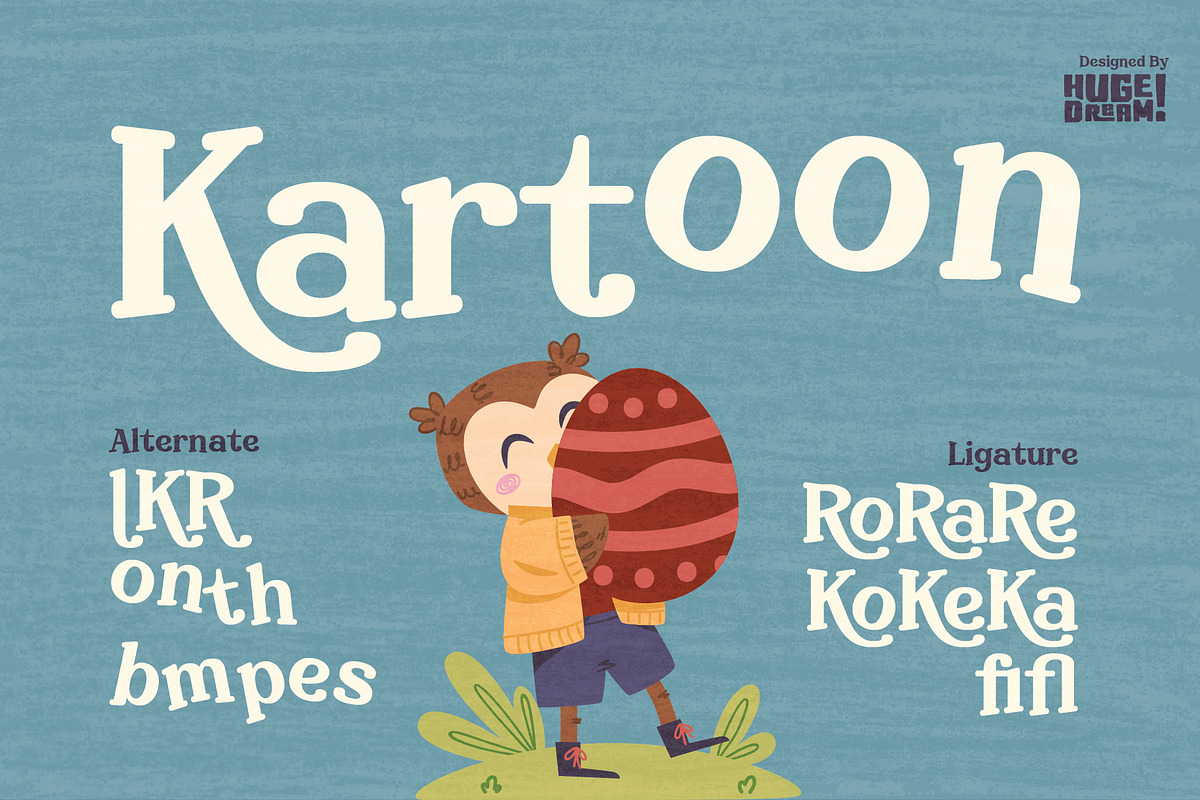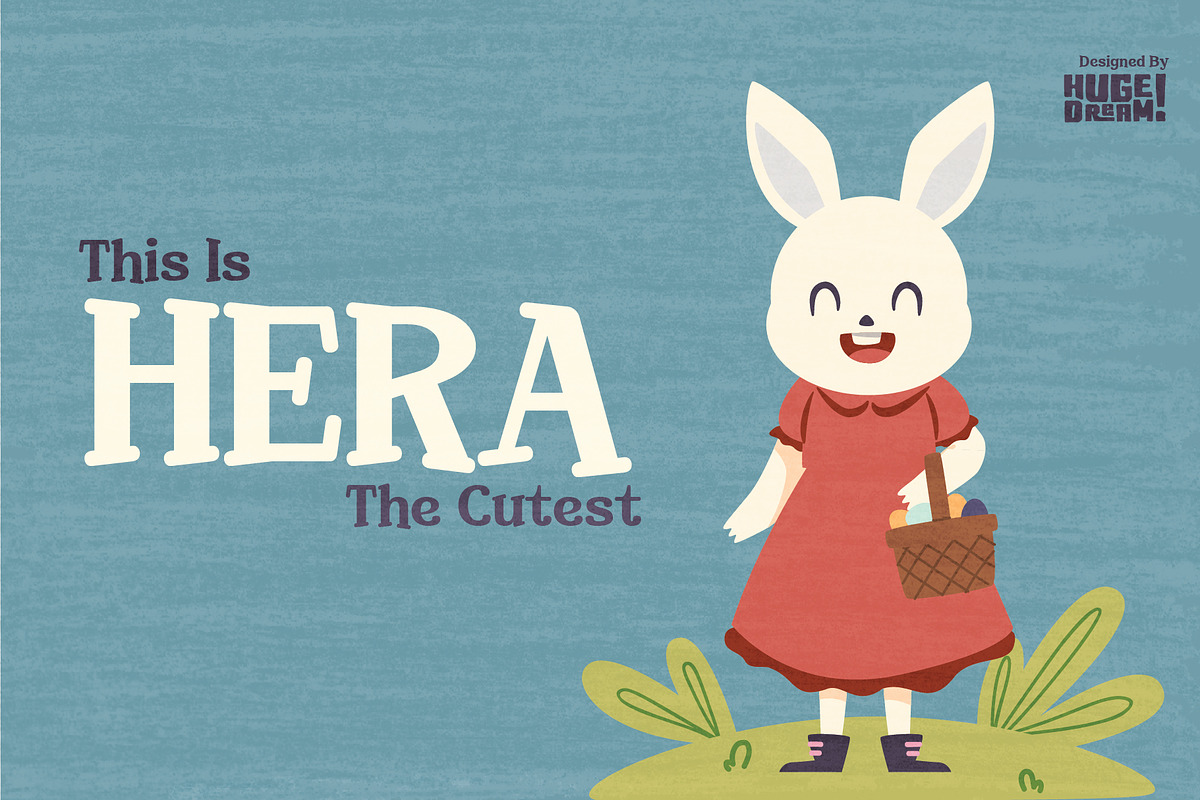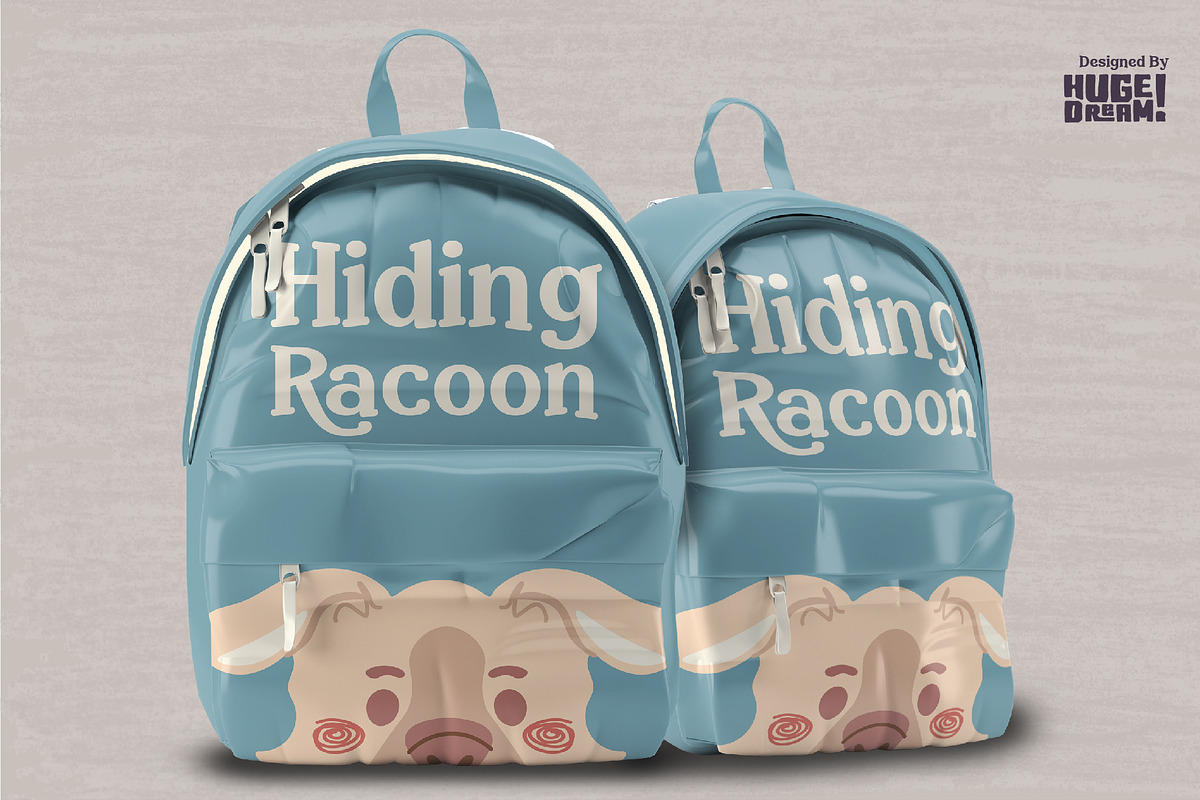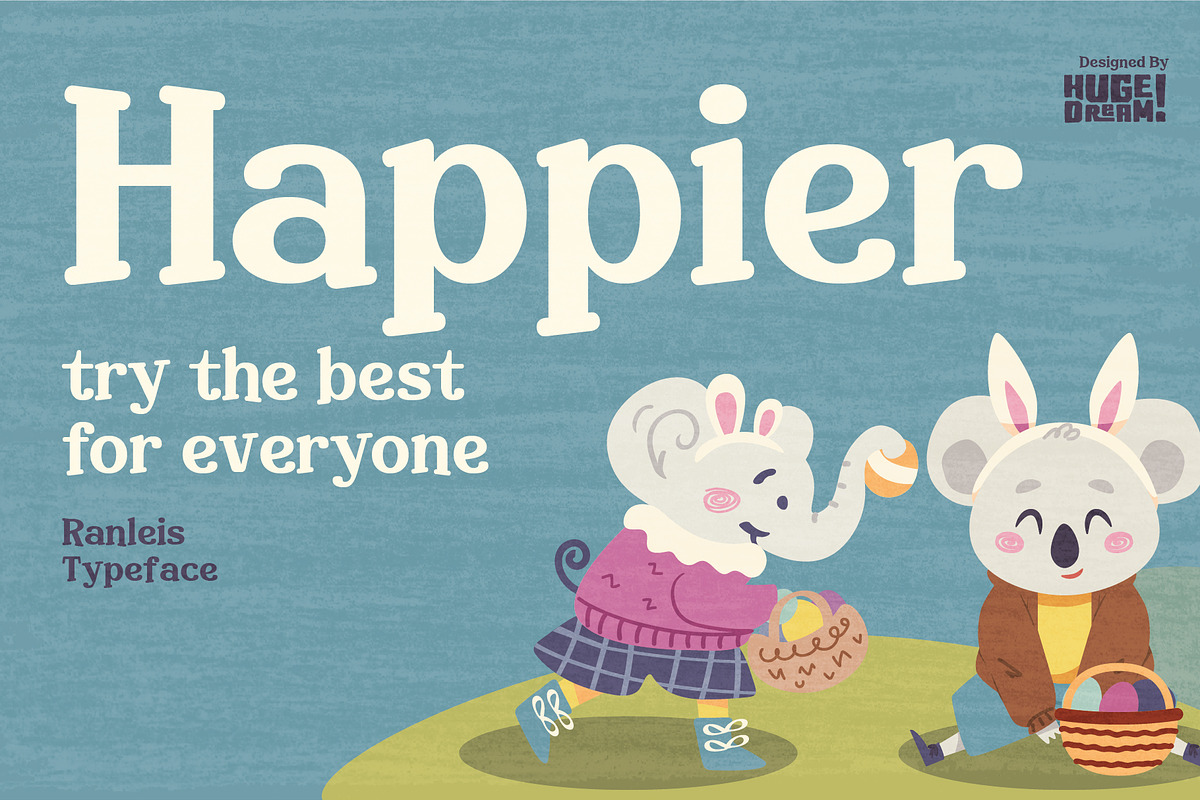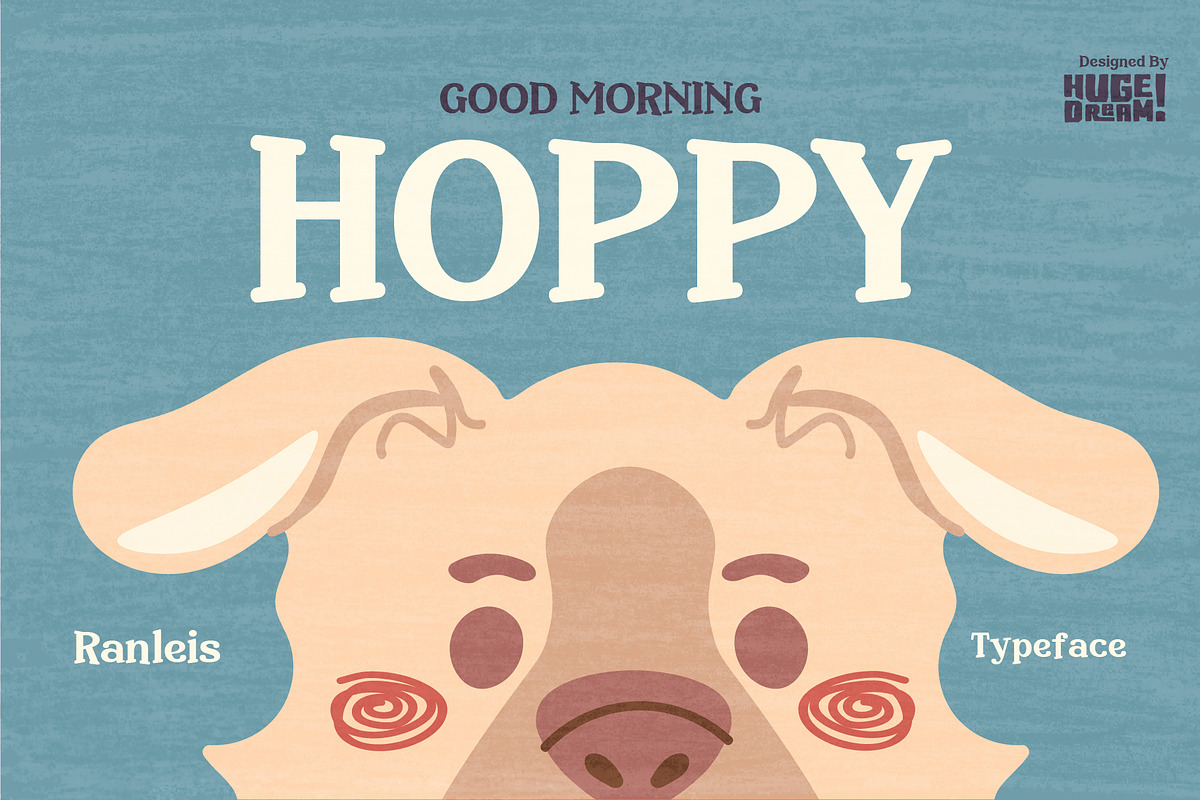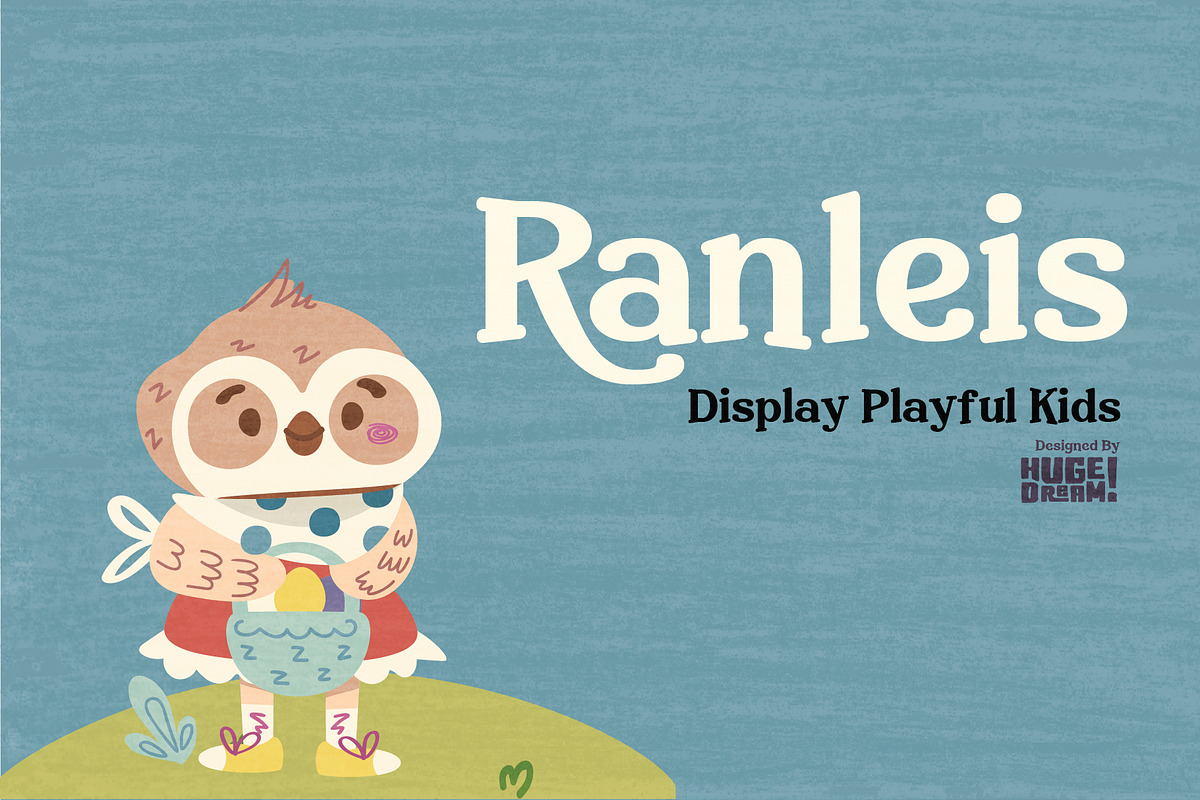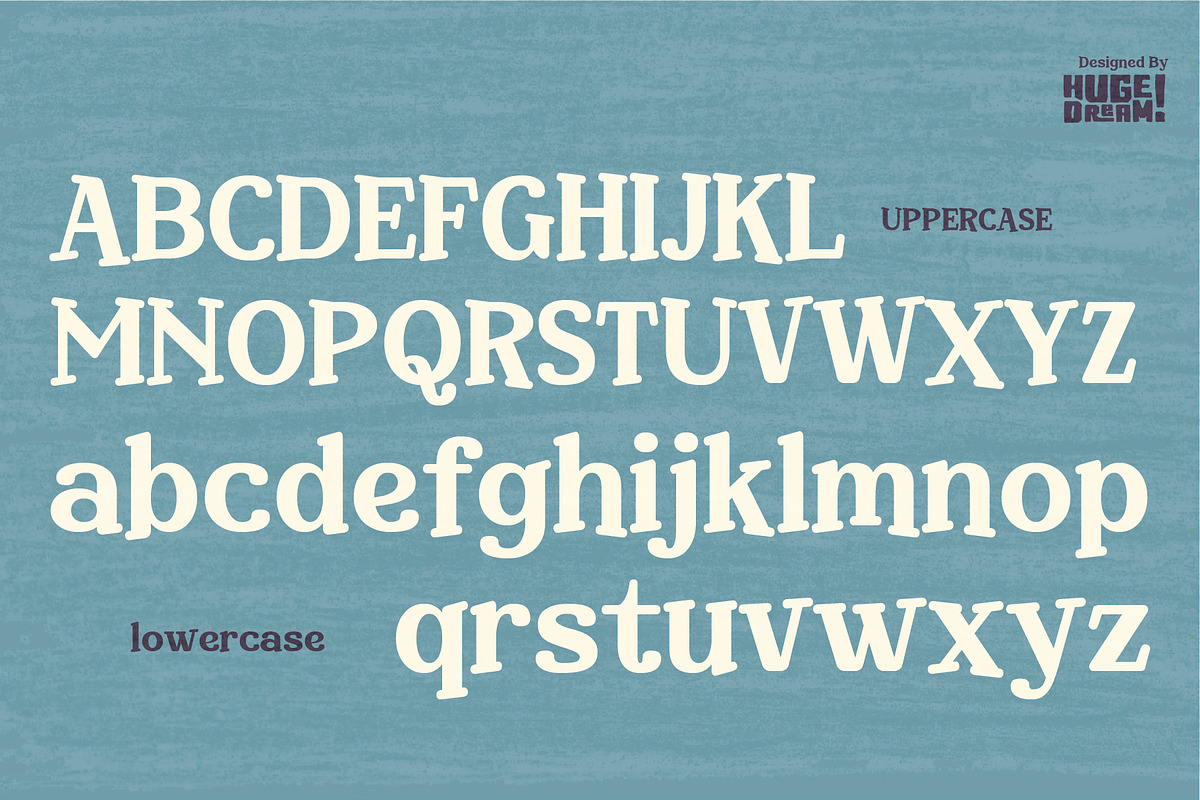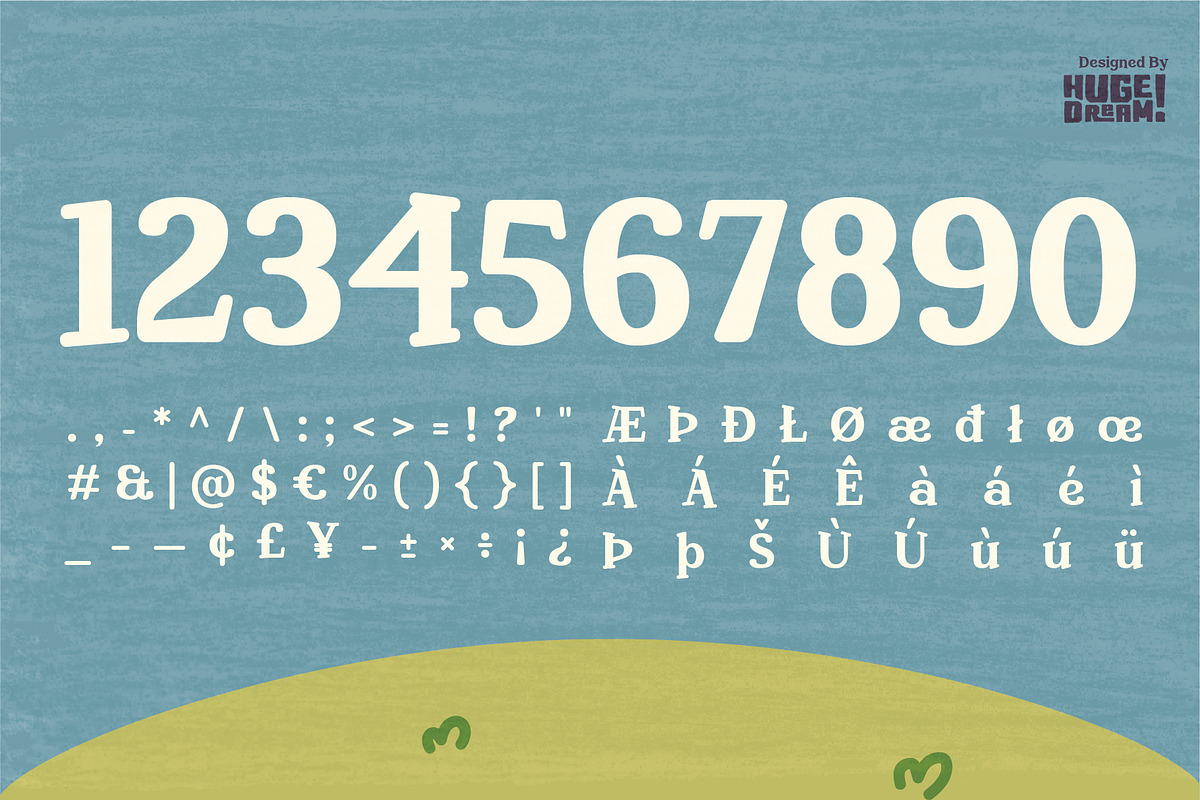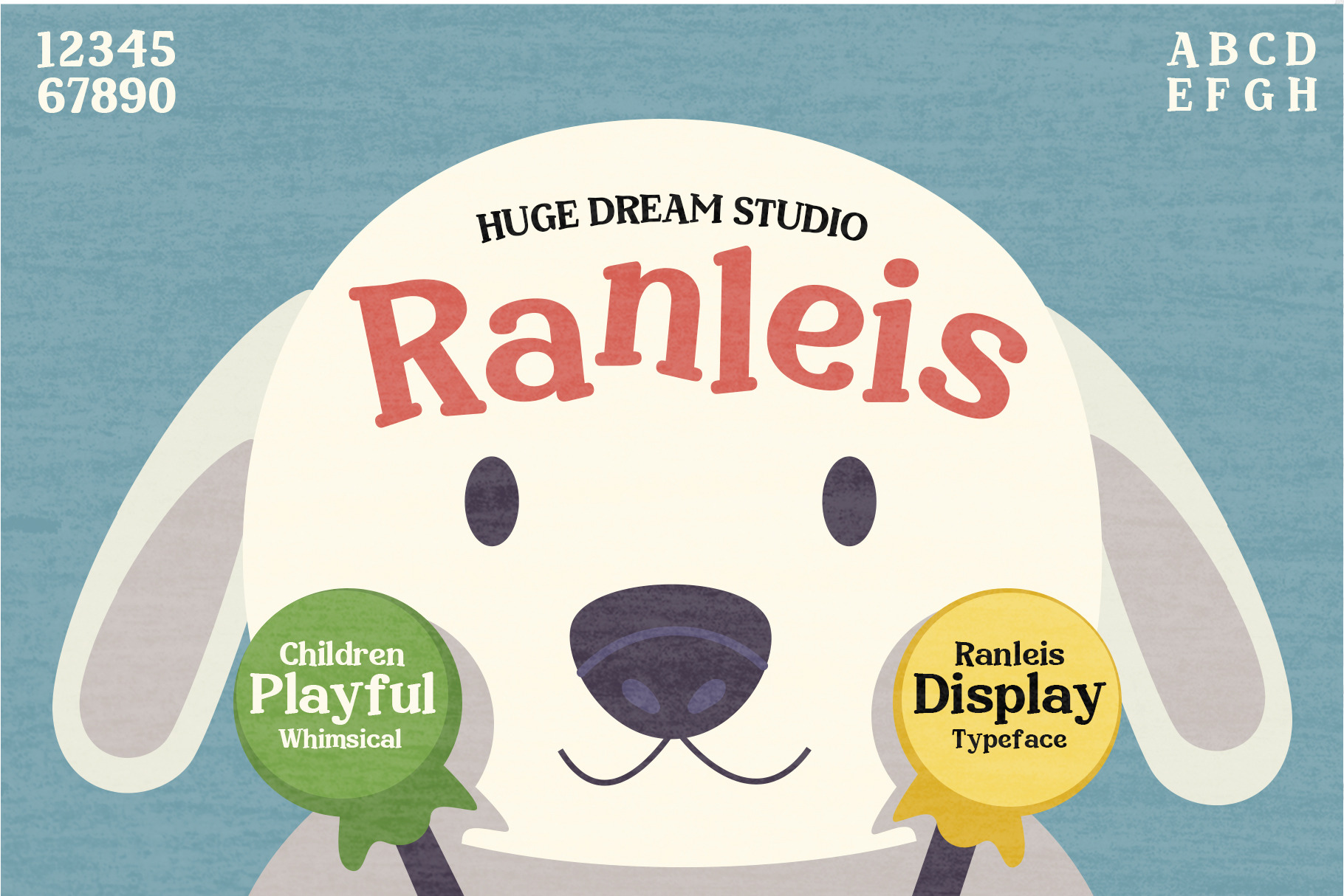
Ranleis - Whimsical Playful Font
Ranleis is a playful, whimsical, childlike typeface designed to bring a touch of fun and whimsy to various creative projects.